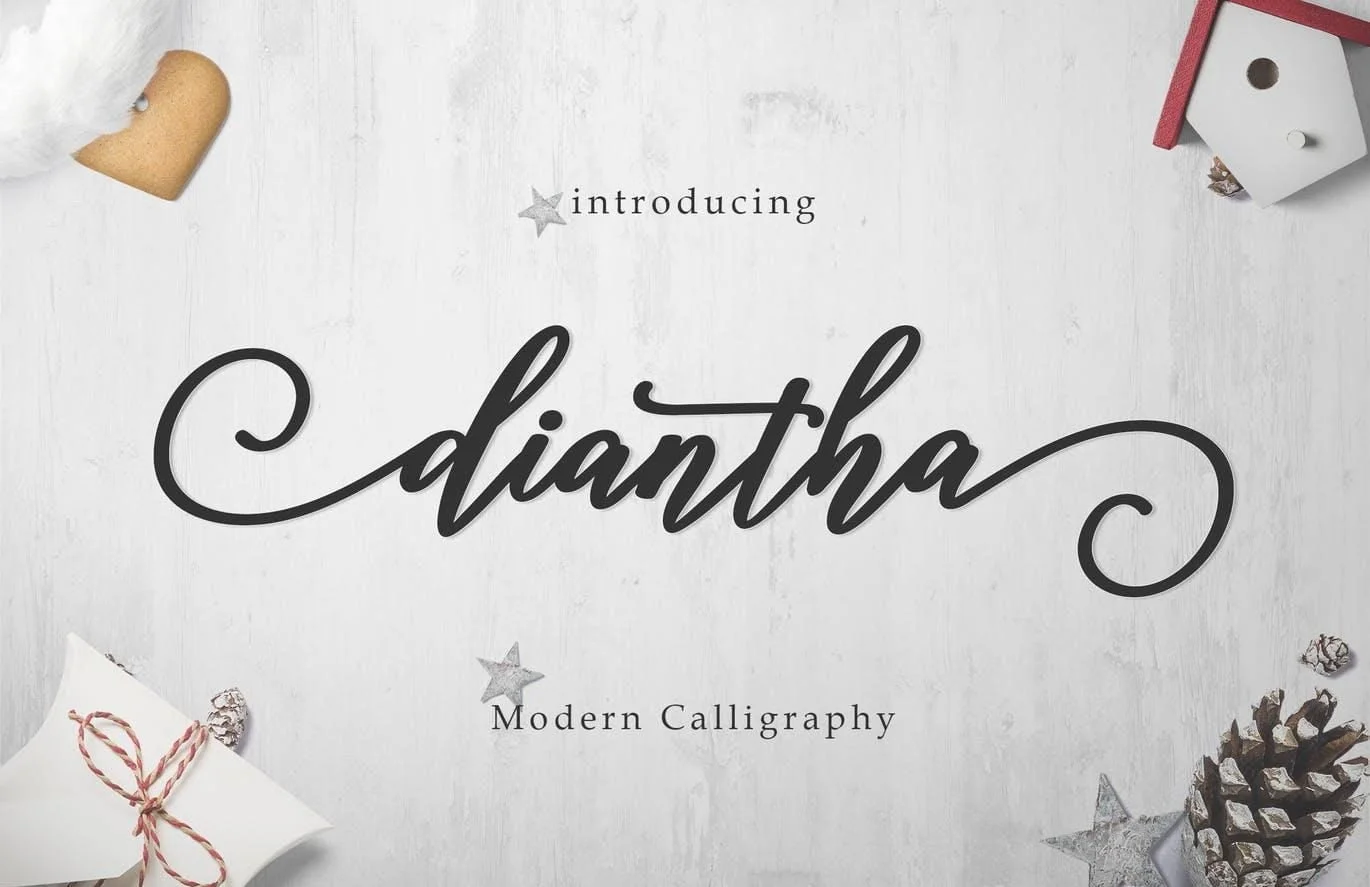
Diantha Script Font is perfect for wedding invitations, luxury branding, elegant logos, fashion magazine editorials, boutique packaging, upscale restaurant menus, feminine business cards, high-end cosmetic labels, romantic greeting cards, and sophisticated social media content that requires refined calligraphic elegance.
This font is exciting because it combines classic calligraphy traditions with contemporary design sensibilities, creating flowing letterforms that exude grace, sophistication, and timeless beauty. The smooth connections and elegant flourishes bring an artisanal quality to every project, making designs feel luxurious, handcrafted, and visually captivating.
The Diantha Script Font family typically includes uppercase and lowercase characters, numerals, punctuation marks, stylistic alternates, decorative swashes, ligatures, and ornamental elements that enable designers to create truly customized compositions with artistic sophistication.
Whether you're crafting premium brand identities, designing elegant wedding materials, or developing upscale marketing collateral that demands attention, Diantha Script Font Free Download provides the perfect typographic expression of refinement and class. Its exquisite flowing style and sophisticated character make every project feel more exclusive and professionally executed, ensuring your designs beautifully convey elegance, luxury, and timeless style that captivates discerning audiences and elevates your creative work above ordinary typography.